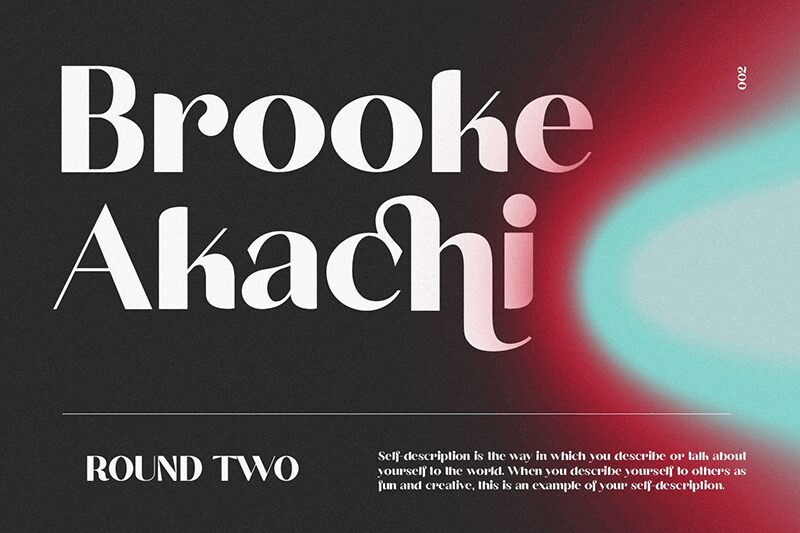
Brogi FREE
Brogi, crafted by FactoryType, is a font that captures the eye with its bold presence and sophisticated curves. This free typeface embodies confidence, making it an ideal choice for logo creation and branding endeavors where distinction is paramount. The elegance of Brogi lies in its subtle yet impactful style-it's not just a font but a statement piece for your design arsenal.
For designers aiming to infuse their work with prominence and style, Brogi serves as a powerful tool. Its commanding character ensures your projects will captivate attention, from business logos to artistic branding. Embrace the allure of Brogi in your next design project and let its unique flair elevate your creative vision.